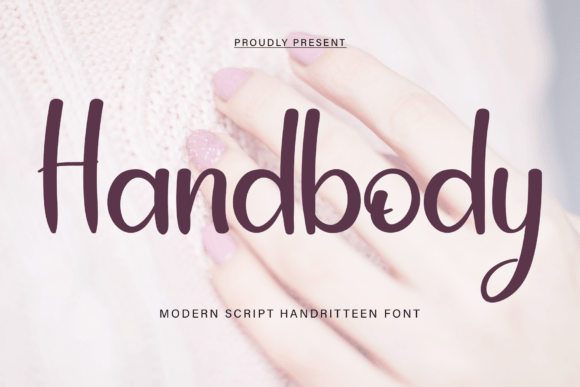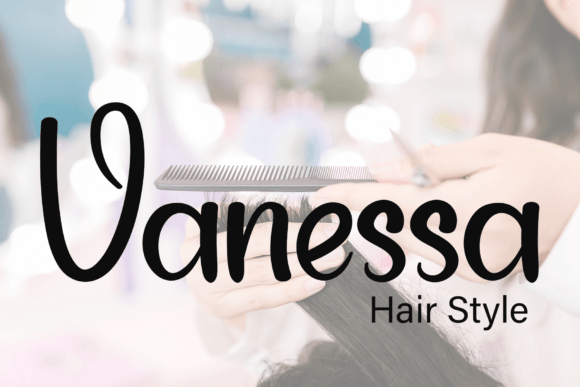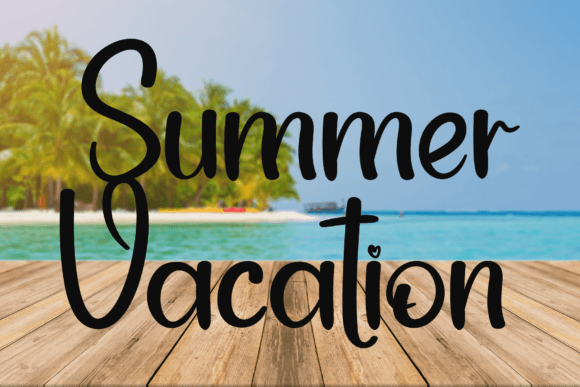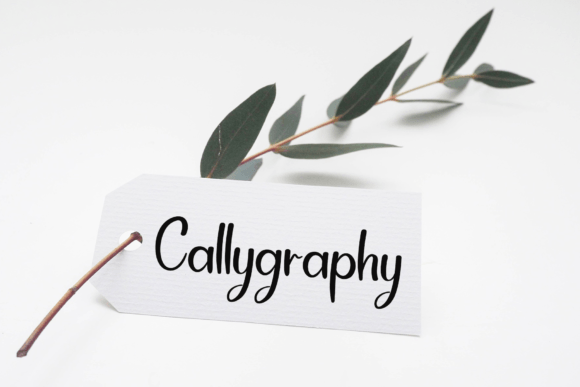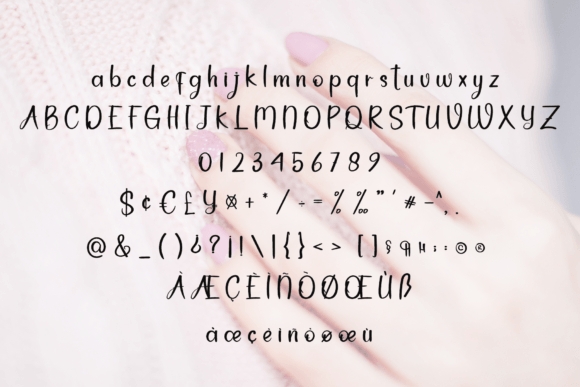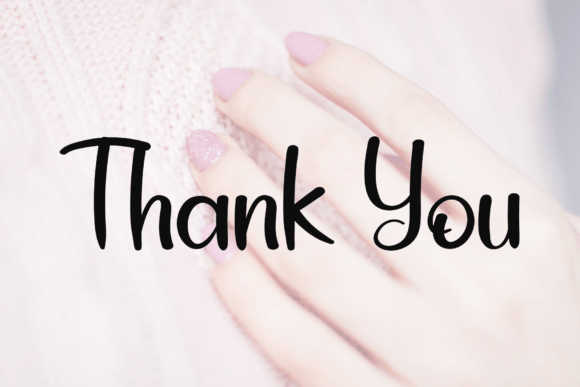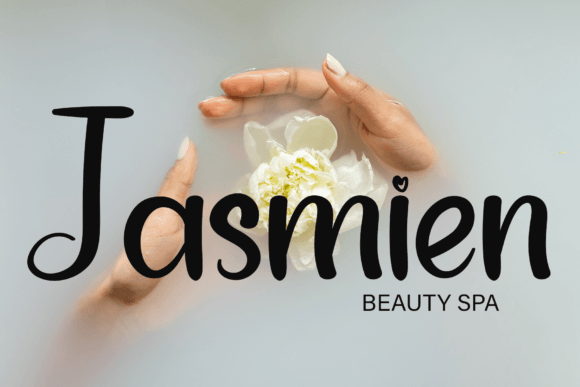
Handbody Font
About Handbody Font
Handbody, a beautiful and refined script font, emerges as a captivating typeface with a classy, elegant, and modern appeal. This versatile font is a design powerhouse, perfectly suited for an array of creative applications including logos, branding, invitations, stationery, wedding designs, social media posts, and beyond.
The allure of Handbody lies in its meticulous design, where each curve and stroke exudes sophistication and refinement. The script style of the font adds a touch of elegance to your projects, making it an ideal choice for creating a lasting and memorable impression across diverse design contexts.
Envision the impact of Handbody in logo designs, where its classy aesthetics contribute to a distinctive and memorable brand identity. For invitations and wedding designs, the font becomes a symbol of grace and style, setting the perfect tone for special occasions. Handbody seamlessly adapts to various design needs, making it an invaluable asset for stationery and elevating the visual appeal of social media content.
Handbody transcends being merely a font; it’s a design tool that transforms your creative concepts into visual masterpieces. Its versatility allows it to enhance the overall aesthetic of your projects, infusing them with a contemporary and refined charm. The script nature of the font adds a personal and authentic touch, making your designs stand out with modern sophistication.
Whether you’re crafting a brand identity, designing invitations, or creating engaging social media posts, Handbody becomes an essential element in your creative toolkit. It effortlessly combines beauty and refinement, making your projects not only visually striking but also memorable and impactful.
In conclusion, Handbody is more than just a script font; it’s an embodiment of modern elegance that elevates your designs to new levels. Embrace its beauty and refined charm, and let it be the driving force behind the creation of captivating visuals that leave a lasting mark across a spectrum of design endeavors.